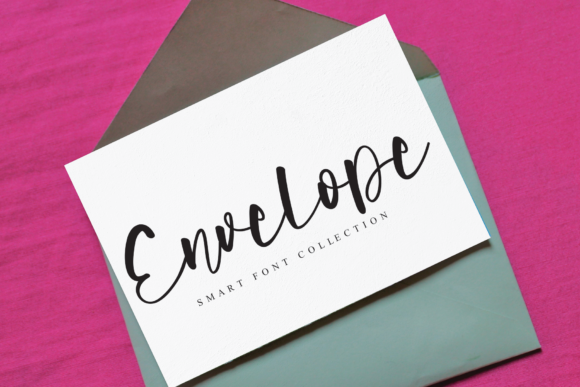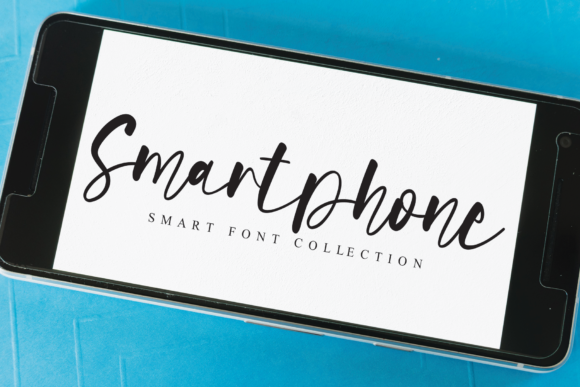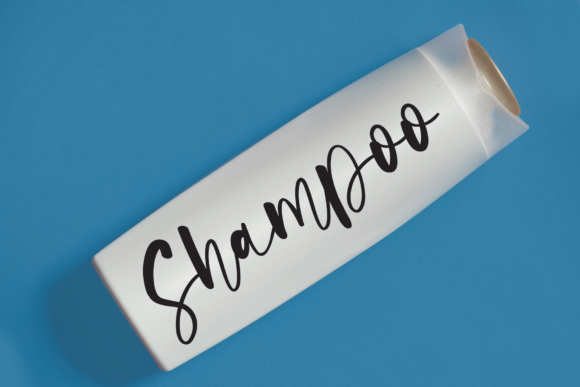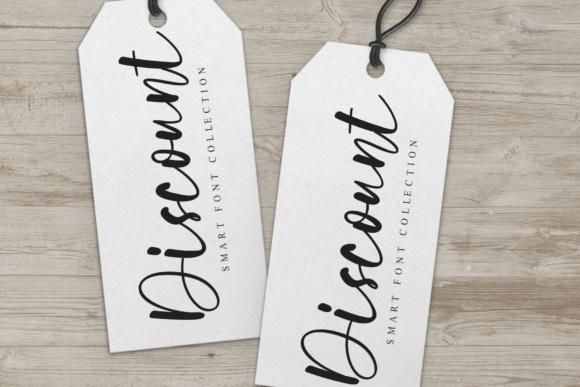
Beeflower Font: The Charming Handwritten Font for Your Design Projects
Are you looking for a font that adds a touch of elegance and charm to your design projects? Look no further than Beeflower Font! This minimal and flowing handwritten font is perfect for designers and crafters who want to create beautiful and eye-catching designs. In this article, we’ll explore the features and benefits of Beeflower Font, and show you how to use it to take your designs to the next level.
What is Beeflower Font?
Beeflower Font is a modern handwritten font that is characterized by its simplicity, elegance, and charm. With its flowing lines and minimalistic design, this font is perfect for creating beautiful and sophisticated designs. Whether you’re working on a logo, branding project, or social media graphics, Beeflower Font is sure to make your designs stand out.
Features of Beeflower Font
Beeflower Font has several features that make it an ideal choice for designers and crafters. Some of its key features include:
- Minimal and Flowing Design: Beeflower Font has a minimal and flowing design that gives it a elegant and sophisticated look.
- Handwritten Style: This font has a handwritten style that adds a personal touch to your designs.
- Charming Appearance: Beeflower Font has a charming appearance that makes it perfect for designs that require a touch of elegance and sophistication.
- Easy to Read: This font is easy to read, making it perfect for body text and headings.
Benefits of Using Beeflower Font
There are several benefits to using Beeflower Font in your design projects. Some of the benefits include:
- Unique and Eye-Catching Designs: Beeflower Font helps you create unique and eye-catching designs that stand out from the crowd.
- Perfect for Branding and Logo Design: This font is perfect for branding and logo design projects that require a touch of elegance and sophistication.
- Easy to Pair with Other Fonts: Beeflower Font is easy to pair with other fonts, making it perfect for designs that require a combination of fonts.
- Supports Multiple Languages: This font supports multiple languages, making it perfect for designers who work with clients from different parts of the world.
How to Use Beeflower Font
Using Beeflower Font is easy! Here are some tips to get you started:
- Use it for Headings and Titles: Beeflower Font is perfect for headings and titles that require a touch of elegance and sophistication.
- Pair it with Other Fonts: Pair Beeflower Font with other fonts to create unique and eye-catching designs.
- Experiment with Different Colors and Textures: Experiment with different colors and textures to add depth and interest to your designs.
Who Can Use Beeflower Font?
Beeflower Font is perfect for designers and crafters who want to create beautiful and eye-catching designs. Some of the professionals who can use this font include:
- Graphic Designers: Graphic designers can use Beeflower Font for branding, logo design, and social media graphics.
- Crafters: Crafters can use this font for creating beautiful and unique crafts, such as handmade cards and gift tags.
- Stationery Designers: Stationery designers can use Beeflower Font for creating beautiful and elegant stationery, such as letterheads and business cards.
In conclusion, Beeflower Font is a beautiful and charming handwritten font that is perfect for designers and crafters who want to create elegant and sophisticated designs. With its minimal and flowing design, this font is perfect for branding, logo design, and social media graphics. Whether you’re a graphic designer, crafter, or stationery designer, Beeflower Font is sure to become a valuable addition to your font collection.